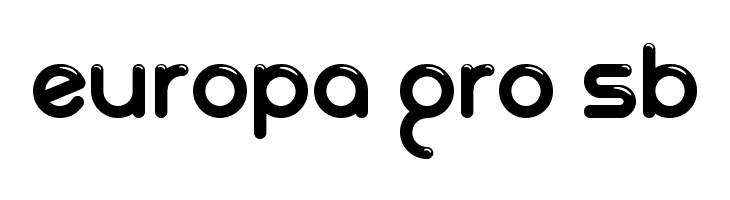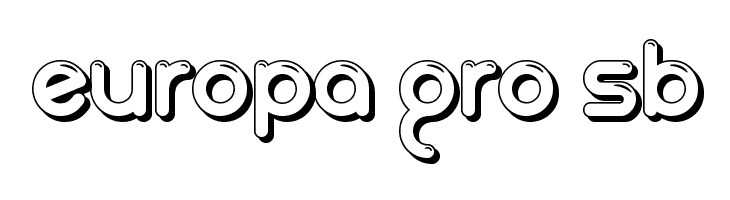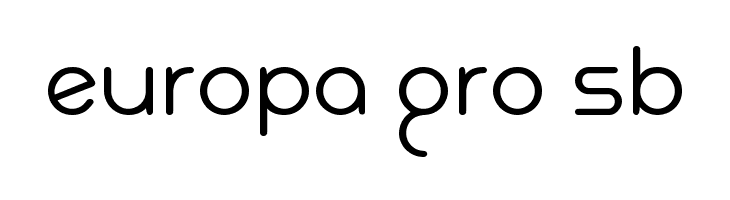
( Fonts by akaType - Personal-use only. For commercial use please contact owner. )
A whimsical and decorative font with playful swirls and loops.
( Fonts by Syafiiirman Studio )
A playful, bold handwritten font with rounded letterforms.
( Fonts by akaType - Personal-use only. For commercial use please contact owner. )
A bold, impactful font with strong, thick strokes and a modern classic appeal.
( Fonts by akaType - James Milligan )
A bold, playful font with thick, rounded characters and a cartoonish style.
( Fonts by akaType - James Milligan )
A playful, bold font with a cartoonish style and shadow effect.
( Fonts by akaType - James Milligan )
A playful, bold font with thick, rounded characters and a whimsical style.
( Fonts by akaType - James Milligan )
A whimsical and elegant script font with playful swirls and loops.
( Fonts by Rangkai Aksara - Personal-use only. For commercial use please contact owner. )
A playful, whimsical script font with smooth, flowing lines and a hand-drawn appearance.
( Fonts by Rangkai Aksara - Personal-use only. For commercial use please contact owner. )
A playful, handwritten script font with a whimsical and elegant style.
( Fonts by akaType - Personal-use only. For commercial use please contact owner. )
A bold, geometric font with tribal and artistic elements.
( www.studiotypo.com )
A modern, rounded font with a bold and playful style.
( Fonts by Swadharma Wiyastana - Personal-use only. For commercial use please contact owner. )
A modern, geometric font with rounded edges and consistent stroke width.
( Fonts by akaType - James Milligan )
A bold, gothic-inspired font with sharp serifs and thick strokes.